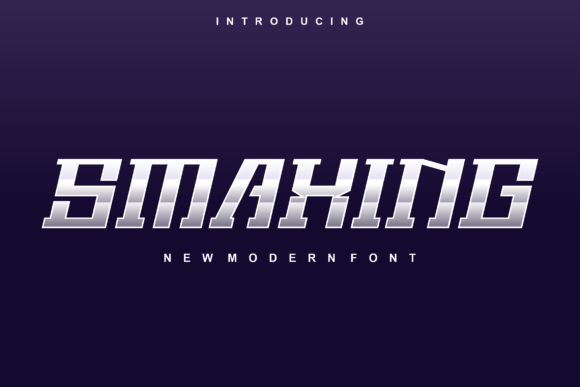
Introducing "Smaxing Font" - The Archetypal Display Font Family for Logo Typography
In the realm of visual storytelling, fonts play a pivotal role. They possess the uncanny ability to amplify the essence of your brand, shape perceptions, and leave an enduring impression on your audience. If you're seeking a font family that exudes both modernity and boldness, look no further than Smaxing Font.
Crafted with meticulous precision by the esteemed designer, Kalingga.albert, Smaxing Font is the epitome of authenticity and assertiveness. Its very essence is imbued with a spirit of audacity, emboldening you to make a statement and stand out from the mundane. From captivating logos that command attention to striking headlines that elicit emotion, Smaxing Font is your gateway to creative liberation.
Visualize your logo, the cornerstone of your brand identity, adorned with the Smaxing Font. Picture its bold strokes exuding confidence, hinting at the unwavering strength and determination that underpins your enterprise. The font's inherent charisma will captivate your audience, drawing them into your brand's captivating narrative.
But Smaxing Font's allure extends far beyond the realm of logos. It's a versatile font family that seamlessly adapts to a diverse spectrum of creative projects. Envision your website's headlines, infused with a dynamism that compels visitors to delve deeper into your offerings. Picture your social media posts, radiating with a vibrancy that sets them apart from the sea of mediocrity. Smaxing Font is the creative catalyst you need to ignite your brand's journey towards greatness.
Let Smaxing Font be the cornerstone of your creative endeavors. Its modern aesthetic and bold personality will elevate your designs to unprecedented heights. Experience the transformative power of a font family that embodies authenticity and assertiveness. Unleash your imagination and watch as your creative ideas come alive, imbued with the Smaxing Font's captivating essence.